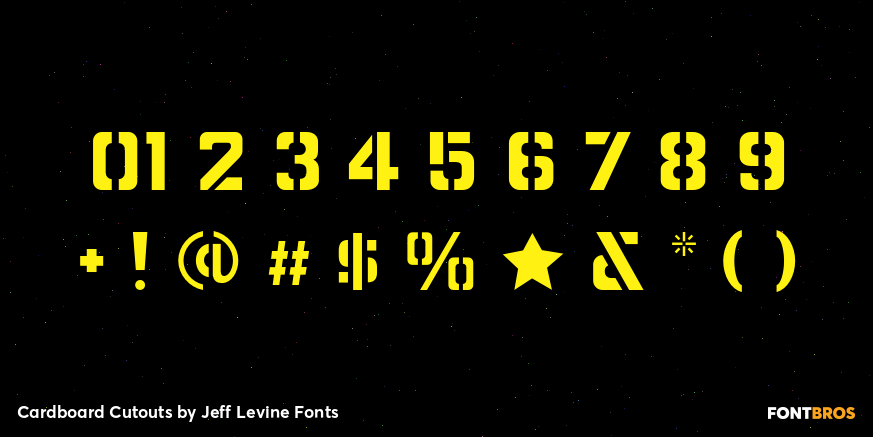
Cardboard Cutouts
Cardboard Cutouts JNL is a blocky sans serif font re-drawn from some old "kiddie" stencils from the 1950s or 1960s acquired by Jeff Levine.